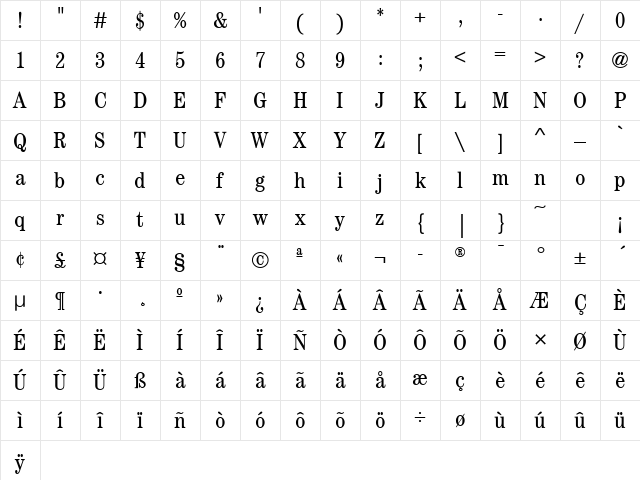
CenturyBookCdITC Medium
Foundry: E+F Designstudio. ITC Century is a registered trademark of International Typeface Corporation
Complete CenturyBookCdITC Medium glyph index. Displaying only characters natively supported by CenturyBookCdITC Medium font.
Design Context for CenturyBookCdITC
CenturyBookCdITC is a composed and adaptable typeface that performs quietly and consistently across a wide range of design contexts.
Who designed the CenturyBookCdITC Medium font?
This font was published by E+F Designstudio. ITC Century is a registered trademark of International Typeface Corporation. Check the technical specs section for copyright and designer details.